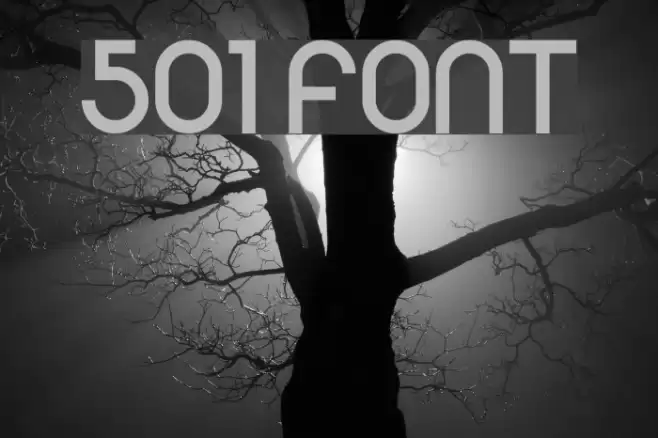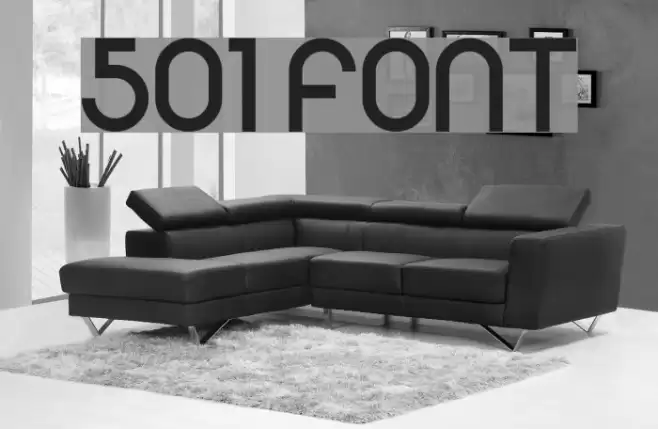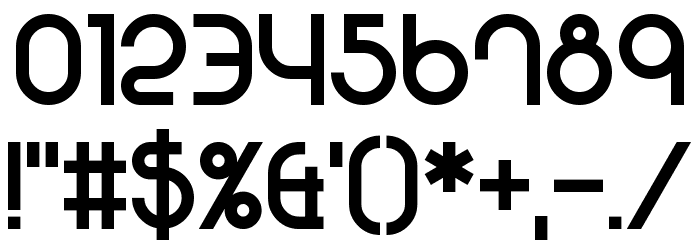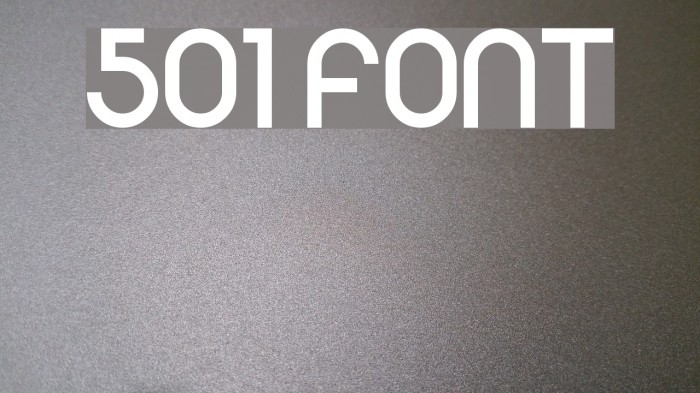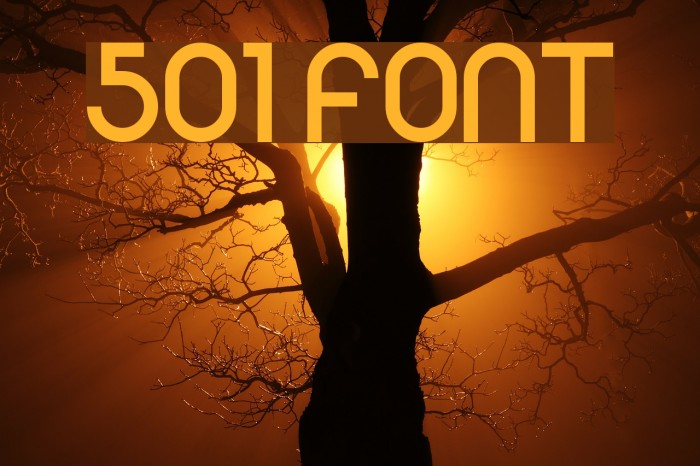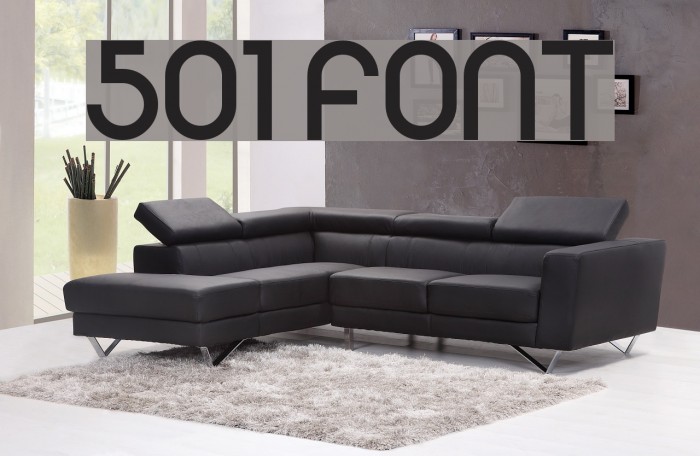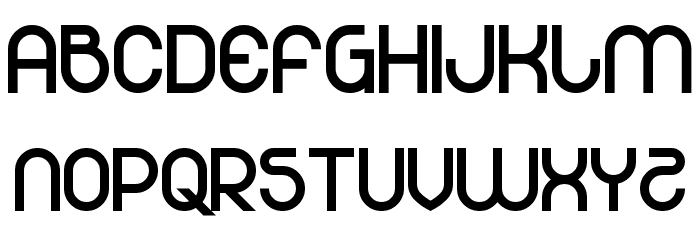
501 Font
501 Description
This font features a modern, geometric design with clean lines and rounded edges, creating a futuristic and sleek appearance. The uppercase and lowercase letters maintain a consistent height, contributing to a uniform look. The numerals are distinct and easily readable, with a similar geometric style. Special characters are designed to match the overall aesthetic, ensuring cohesion across all elements. The font's structure is bold and impactful, making it suitable for attention-grabbing designs. Its unique style is both contemporary and versatile, allowing for creative applications in various projects.
A modern, geometric font with clean lines and rounded edges for a sleek, futuristic look from Uncategorized fonts.
- Proposed Projects: Ideal for branding, advertising, digital interfaces, and modern editorial design.
- Use Case: Headlines, Logos, Digital interfaces